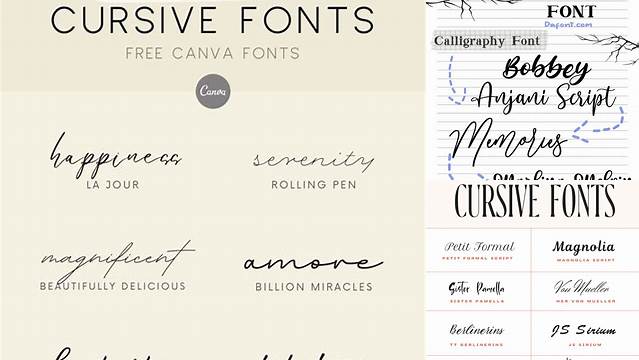
Elegant Cursive Fonts In Word: A How-To Guide
Introduction: Unlocking the Elegance of Cursive Fonts in Microsoft Word
Hey guys! Ever wanted to add a touch of sophistication and elegance to your documents? One of the best ways to do that is by using aesthetic cursive fonts in Microsoft Word. Cursive fonts, with their flowing lines and handwritten feel, can transform your ordinary text into a visually appealing masterpiece. Whether you’re working on invitations, resumes, or creative writing projects, the right cursive font can make all the difference. In this guide, we'll dive deep into the world of aesthetic cursive fonts, exploring why they're so popular, how to use them effectively in Word, and where to find some truly stunning options. We'll also cover some common pitfalls to avoid and offer tips on pairing cursive fonts with other fonts to create a harmonious design. So, buckle up and let’s get started on this journey to elevate your typography game! Choosing the right font is like picking the perfect outfit for an occasion; it sets the tone and conveys the message with style. Imagine crafting a wedding invitation with a classic, flowing cursive font—it immediately evokes a sense of romance and elegance. Or, picture a thank-you note penned in a friendly, approachable script; it feels personal and heartfelt. On the other hand, using a bold, modern sans-serif font for a business report can project confidence and professionalism. The power of fonts lies in their ability to communicate not just the words themselves, but also the underlying emotions and intentions. This is why understanding the nuances of different font styles and how they interact with each other is crucial for effective communication. So, whether you're designing a presentation, writing a letter, or creating a marketing campaign, taking the time to select the right fonts can significantly enhance the impact of your message. Let's explore how aesthetic cursive fonts can add that extra layer of sophistication and charm to your projects in Microsoft Word.
Why Use Aesthetic Cursive Fonts?
So, why should you even bother with aesthetic cursive fonts? Well, there are tons of reasons! First off, they add a personal touch that standard fonts just can't match. Think about it – a handwritten note feels way more special than a typed one, right? Cursive fonts try to capture that same feeling of personal connection and care. They're perfect for projects where you want to create a sense of warmth and authenticity. They can evoke feelings of nostalgia, elegance, and sophistication, making them ideal for invitations, thank-you notes, and creative writing pieces. But it's not just about looks. Cursive fonts can also help you stand out from the crowd. In a world filled with Times New Roman and Arial, using a unique cursive font can make your document instantly more memorable. This is especially important for businesses and individuals looking to create a distinctive brand identity. Imagine a logo or website header featuring a beautifully crafted cursive font – it can leave a lasting impression on your audience. Of course, it's crucial to use cursive fonts wisely. Overdoing it can make your text hard to read, which is the opposite of what you want. But when used correctly, these fonts can be a powerful tool for enhancing your message and making your work truly shine. Aesthetic cursive fonts aren't just about looking pretty; they're about communicating effectively and making a statement. By understanding their strengths and limitations, you can harness their power to create documents that are both beautiful and impactful. Cursive fonts, with their fluid strokes and elegant curves, offer a unique visual appeal that can set your work apart. But remember, readability is key. Choosing a cursive font that’s both aesthetically pleasing and easy to read is crucial for ensuring your message is conveyed effectively. So, let's dive into the practical aspects of using these fonts in Microsoft Word and discover how to make the most of their potential.
Finding the Perfect Cursive Font for Word
Now, let's talk about finding the perfect cursive font for your Word document. The good news is, there are tons of options out there! The challenge, though, is sifting through them all to find the ones that truly shine. Microsoft Word comes with a few built-in cursive fonts, like Brush Script MT and Script MT Bold. These are decent starting points, but they can feel a bit generic if you're aiming for something truly unique. If you're looking to expand your font library, the internet is your best friend. Websites like DaFont, FontSpace, and Google Fonts offer a vast selection of free cursive fonts. These sites allow you to preview fonts, download them easily, and often come with helpful licensing information, so you know how you can use them. When you're browsing for fonts, think about the overall tone and style you're going for. Are you crafting a formal invitation that needs a classic, elegant script? Or are you working on a fun, casual project that could benefit from a more playful, whimsical font? Consider the legibility of the font as well. A beautifully ornate font might look stunning at first glance, but if it's difficult to read, it won't serve its purpose. Look for fonts with clear, distinct letterforms and sufficient spacing. Another great resource is Creative Market, which offers a wide range of premium fonts. While these fonts come with a price tag, they often boast higher quality and more unique designs than free options. Investing in a premium font can be a worthwhile choice if you're working on a project where the visual impact is crucial, such as branding materials or professional documents. Remember, the perfect cursive font is out there waiting for you. Take the time to explore different options, experiment with font pairings, and find the font that truly captures the essence of your message. Finding the perfect cursive font is like discovering the missing piece of a puzzle; it brings everything together and elevates your design to a whole new level.
Installing and Using Cursive Fonts in Microsoft Word
Best Practices for Using Cursive Fonts
Alright, let’s dive into some best practices for using those gorgeous cursive fonts. It's not just about picking a pretty font; it’s about using it in a way that enhances your message and doesn’t detract from it. First up: readability is king (or queen!). A beautiful font is useless if no one can read it. Avoid overly ornate or intricate cursive fonts for large blocks of text. Save those for headings, titles, or short, impactful phrases. When choosing a cursive font, consider the context of your document. A formal invitation calls for a different style than a casual thank-you note. Match the font to the tone and purpose of your writing. Think about the overall design of your document too. A cursive font should complement the other elements on the page, not clash with them. Pay attention to font pairings. Cursive fonts often look great when paired with a simple, clean sans-serif font. This creates a nice contrast and keeps things balanced. For example, you might use a cursive font for your headings and a sans-serif font for the body text. White space is your friend! Don’t cram too much text onto the page. Give your cursive font some room to breathe. Ample white space makes your document look more professional and easier to read. Be mindful of font size. Cursive fonts can sometimes appear smaller than other fonts, so you might need to increase the size slightly to make them more legible. Test your font choice by printing out a sample of your document. What looks great on the screen might not translate as well on paper. Printing a sample allows you to catch any readability issues or design flaws before you finalize your project. And finally, don't overuse cursive fonts. Using them sparingly adds impact, but using them for everything can be overwhelming. Think of them as an accent, not the main course. By following these best practices, you can ensure that your cursive fonts enhance your message and create a visually appealing document. Remember, typography is an art, and like any art form, it takes practice and attention to detail to master. So, experiment, have fun, and let your creativity flow!
Font Pairing: How to Combine Cursive with Other Fonts
Font pairing is like creating a harmonious melody – you want different instruments to complement each other, not clash. When it comes to cursive fonts, pairing them with the right counterparts can make all the difference. The golden rule of font pairing is contrast. Cursive fonts, with their flowing, elegant lines, often pair beautifully with clean, simple sans-serif fonts. Think of it as balancing the ornate with the understated. A classic pairing might be a script font like “Great Vibes” for headings and a sans-serif font like “Open Sans” or “Lato” for body text. This combination creates a sophisticated yet readable look. Serif fonts can also work well with cursive fonts, but it's important to choose carefully. Look for serifs that are clean and modern, rather than overly decorative or traditional. A font like “Roboto Serif” can provide a nice contrast to a cursive font without feeling too busy. Avoid pairing two cursive fonts together. This can create a cluttered, illegible mess. The same goes for pairing a cursive font with a highly decorative serif or sans-serif font. Simplicity is key when it comes to font pairing. Consider the mood and tone of your project when selecting your fonts. A formal invitation might call for a more elegant pairing, such as a classic script font with a sophisticated serif. A casual blog post, on the other hand, might benefit from a more playful combination, like a whimsical cursive font with a friendly sans-serif. Don't be afraid to experiment! Font pairing is both a science and an art, and there's no one-size-fits-all solution. Try out different combinations and see what works best for your project. Websites like FontPair and Canva's Font Combinations tool can provide inspiration and help you discover new pairings. Remember, the goal of font pairing is to create a cohesive and visually appealing design. Your fonts should work together to enhance your message, not distract from it. So, take your time, explore different options, and find the pairings that truly resonate with you and your project.
Common Mistakes to Avoid When Using Cursive Fonts
Using cursive fonts can be tricky, guys. While they can add a touch of elegance and personality to your documents, there are some common mistakes you need to steer clear of. Let's break them down so you can avoid these pitfalls and use cursive fonts like a pro! First up, the biggest mistake: overusing them. Cursive fonts are like the spice in your favorite dish – a little bit enhances the flavor, but too much ruins the whole thing. Using cursive fonts for entire paragraphs or long sections of text is a surefire way to make your document illegible and frustrating to read. Save them for headings, titles, short quotes, or other small chunks of text. Another common mistake is choosing a cursive font that’s too ornate or difficult to read. Some cursive fonts are so elaborate that they look beautiful at first glance, but become a jumbled mess when viewed in a paragraph. Always prioritize readability. If you have to squint or strain your eyes to decipher the text, it's not the right font. Pairing cursive fonts with the wrong fonts is another pitfall to avoid. As we discussed earlier, cursive fonts often pair best with simple, clean sans-serif fonts. Avoid pairing them with other highly decorative fonts, as this can create a visually chaotic and overwhelming effect. Font size is also crucial. Cursive fonts often appear smaller than other fonts, so you might need to increase the size slightly to ensure they're legible. But be careful not to go too big, as this can make them look clunky and out of proportion. Ignoring spacing is another mistake that can detract from the beauty of cursive fonts. Cursive fonts often require more spacing between letters and lines than other fonts. Use Word's spacing tools to adjust the character spacing and line height until your text looks balanced and easy to read. Finally, failing to test your font choice is a big no-no. What looks great on your screen might not translate as well on paper. Always print out a sample of your document to check for readability issues and design flaws before you finalize your project. By avoiding these common mistakes, you can harness the power of cursive fonts to create stunning documents that are both beautiful and effective. Remember, it's all about balance, readability, and attention to detail.
Conclusion: Mastering the Art of Aesthetic Cursive Fonts in Word
So, there you have it, folks! We’ve journeyed through the world of aesthetic cursive fonts in Microsoft Word, exploring why they’re so captivating, how to find them, install them, and, most importantly, how to use them effectively. It’s clear that cursive fonts are more than just pretty squiggles; they’re a powerful tool for adding personality, elegance, and a touch of artistry to your documents. But as with any tool, it’s all about knowing how to wield it properly. Remember, the key to mastering cursive fonts is balance. They’re best used sparingly, as accents rather than the main course. Prioritize readability above all else, and don’t be afraid to experiment with different font pairings to find the perfect harmony. By following the best practices we’ve discussed, you can avoid common pitfalls and create documents that are both visually stunning and easy to read. Think of typography as an art form – a way to express yourself and communicate your message with style and grace. Cursive fonts are just one brushstroke in your artistic palette, but they can add a unique and captivating dimension to your work. Whether you’re crafting invitations, designing resumes, or simply adding a personal touch to your correspondence, aesthetic cursive fonts can help you make a lasting impression. So, go ahead, explore the vast world of cursive fonts, and let your creativity flow! With a little practice and attention to detail, you’ll be crafting beautiful, eye-catching documents in no time. And remember, the most important thing is to have fun and let your personality shine through. Happy font-ing!